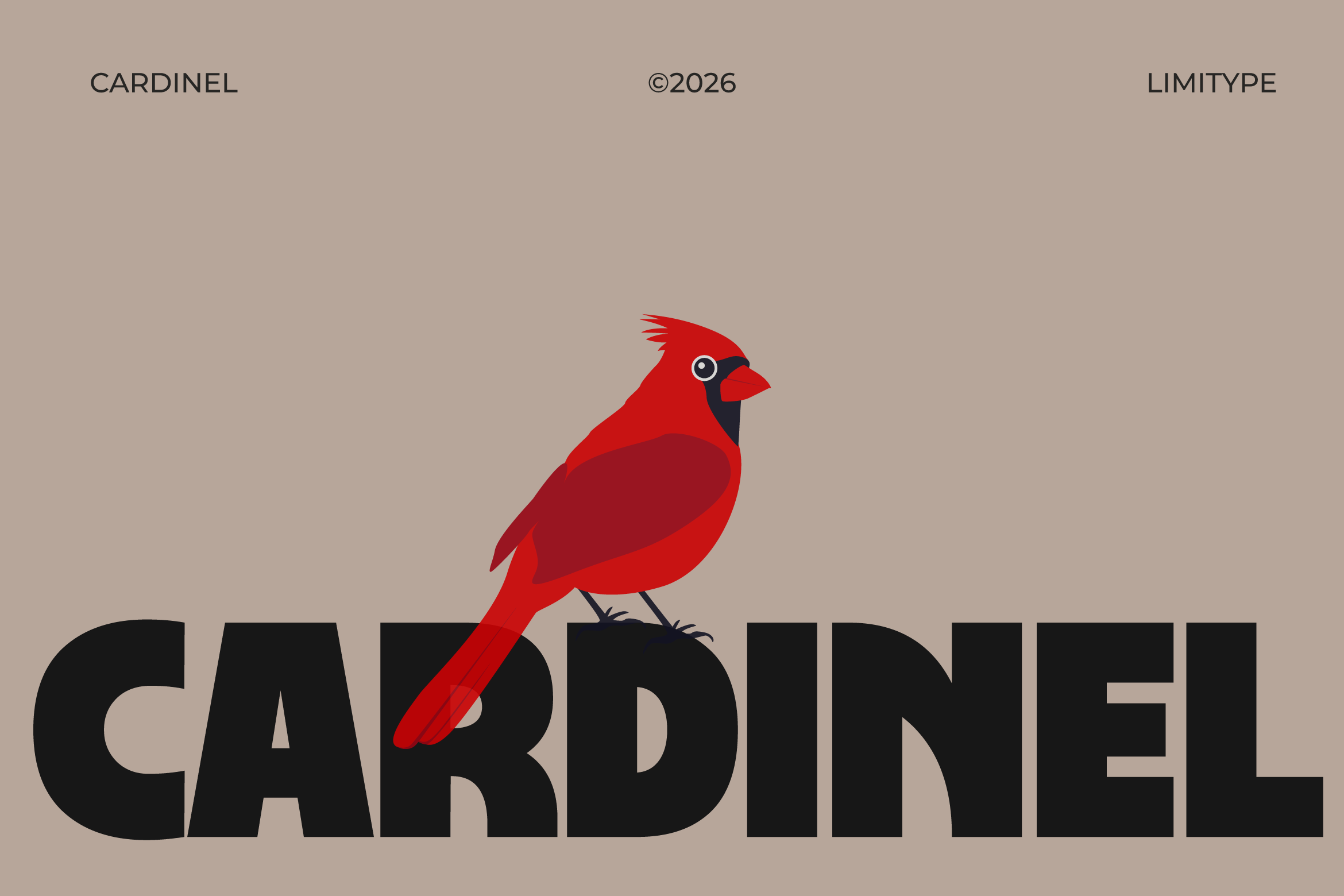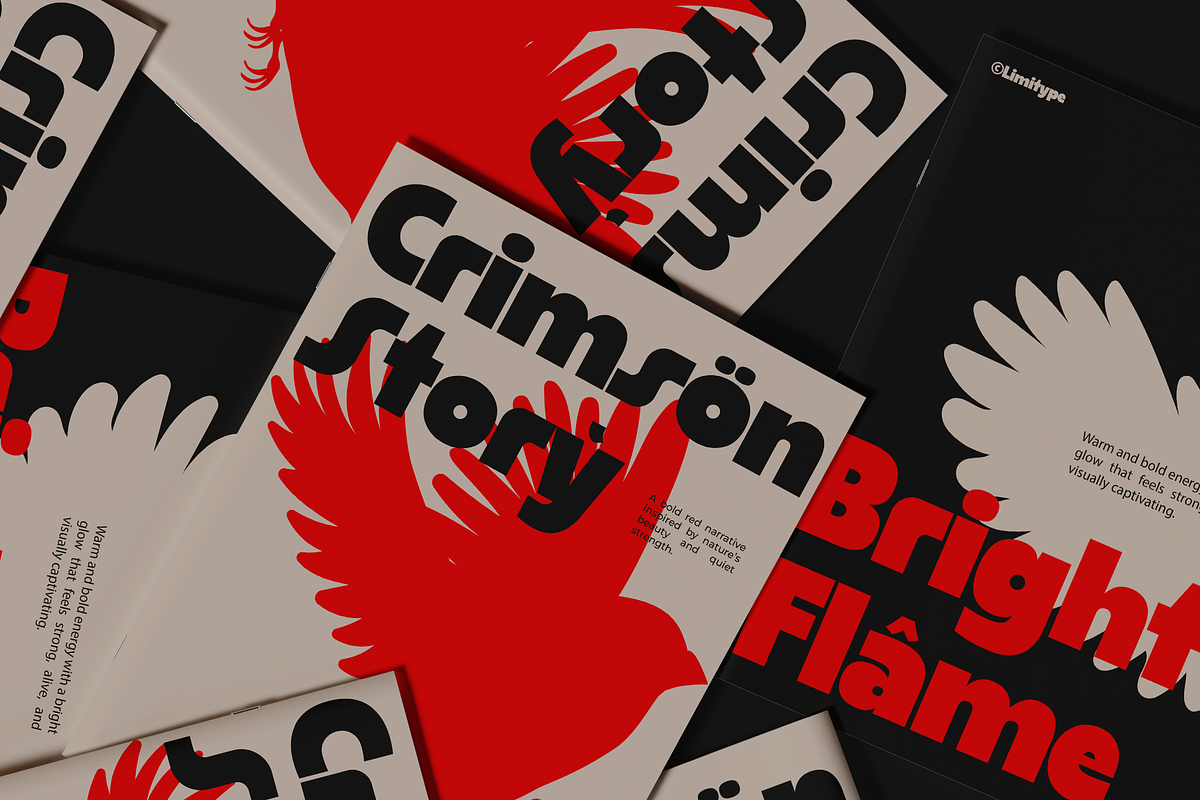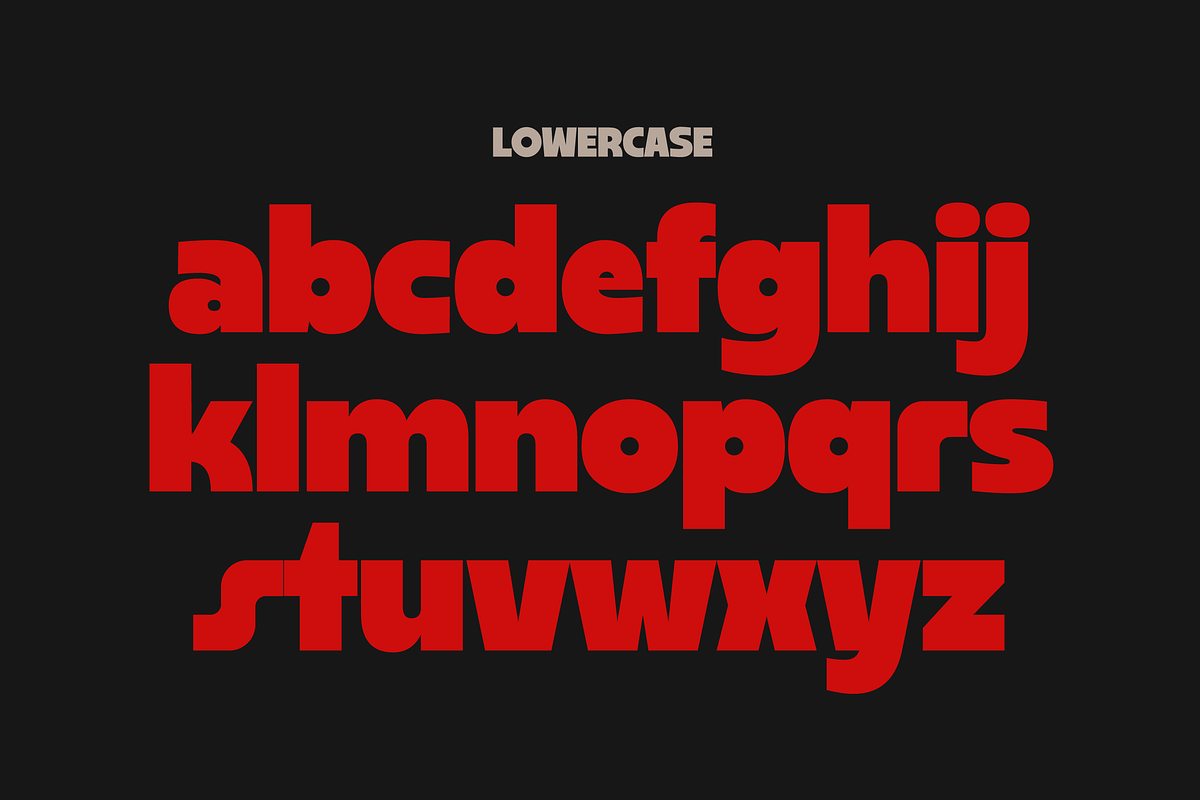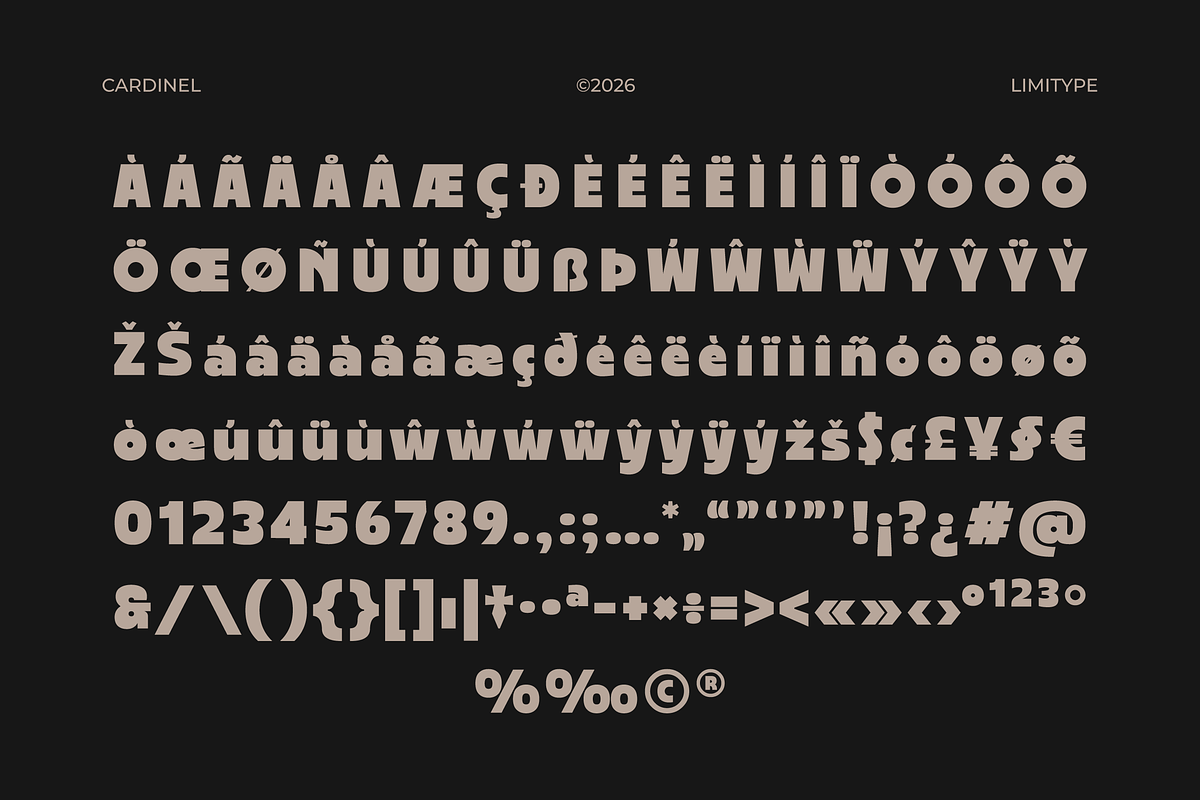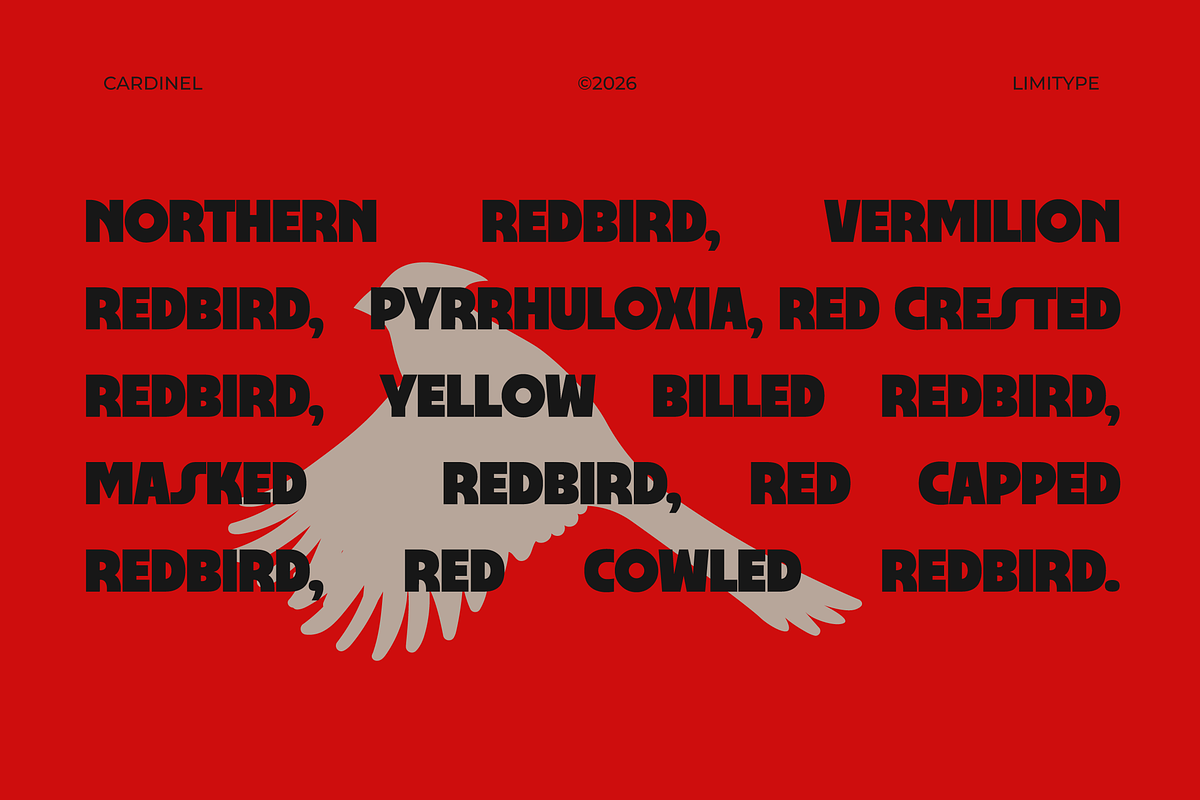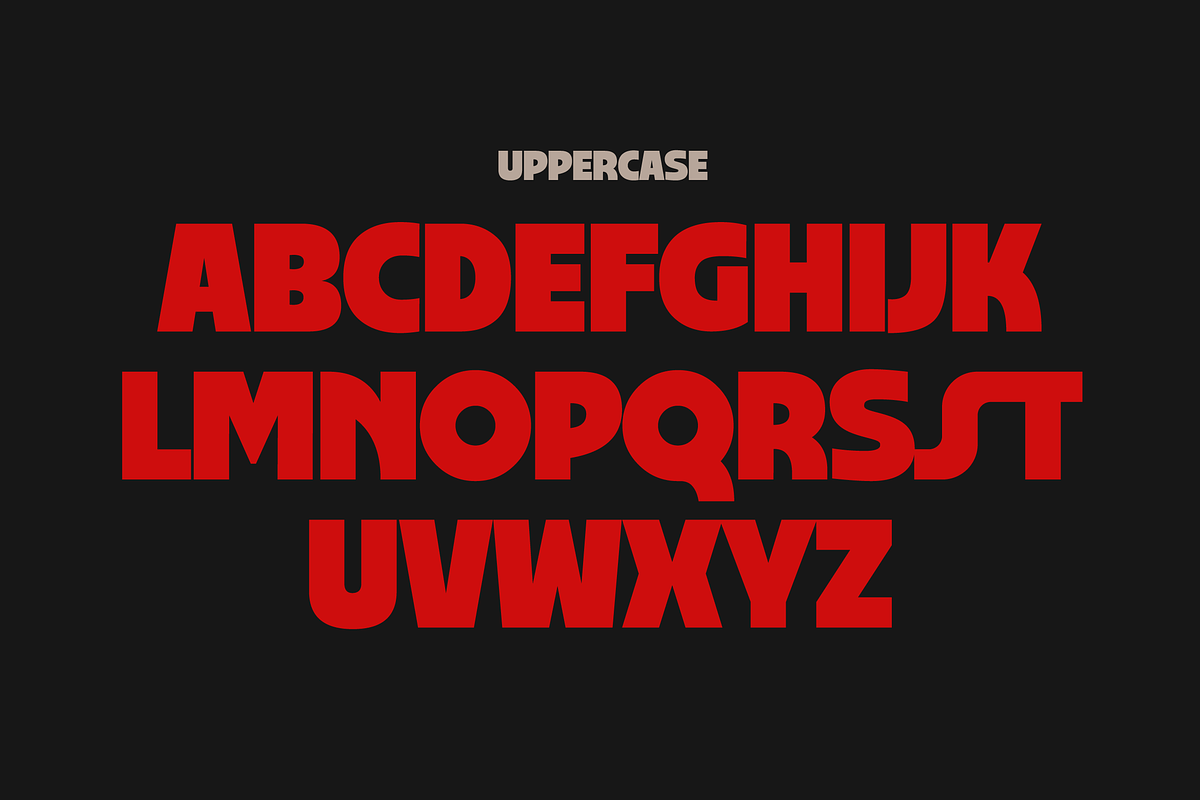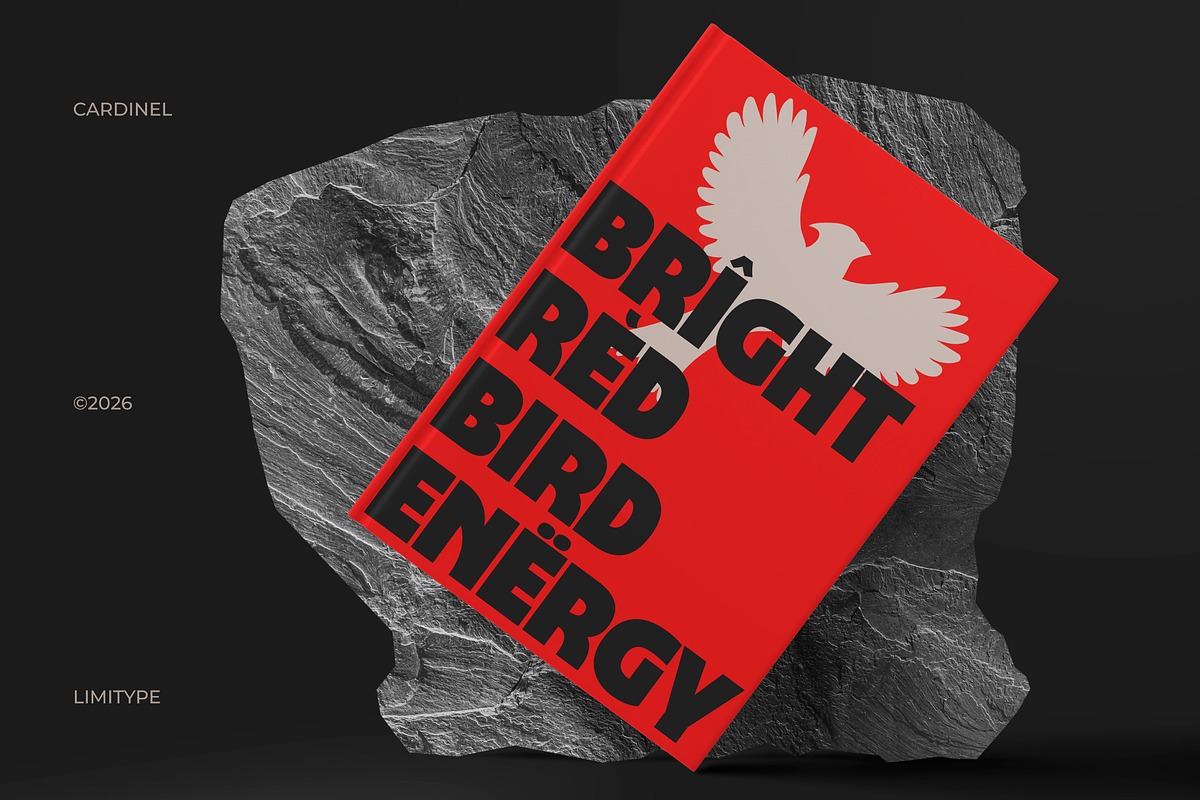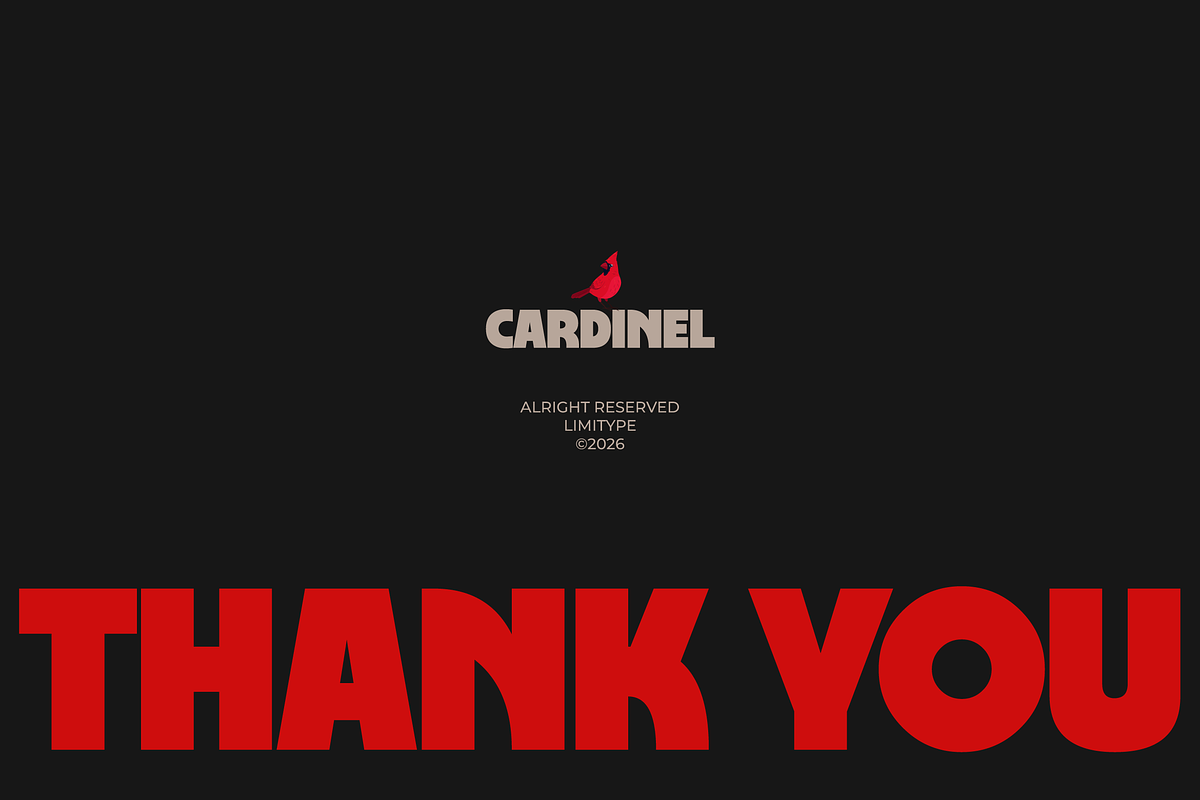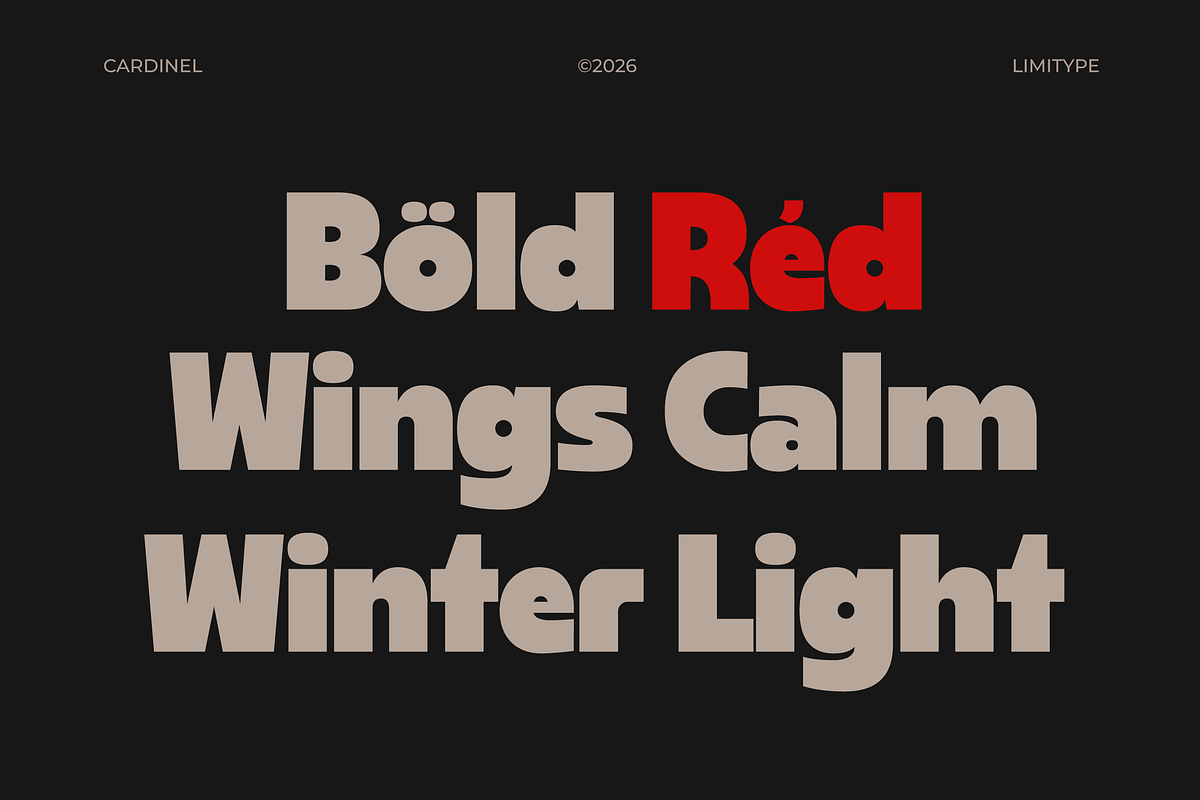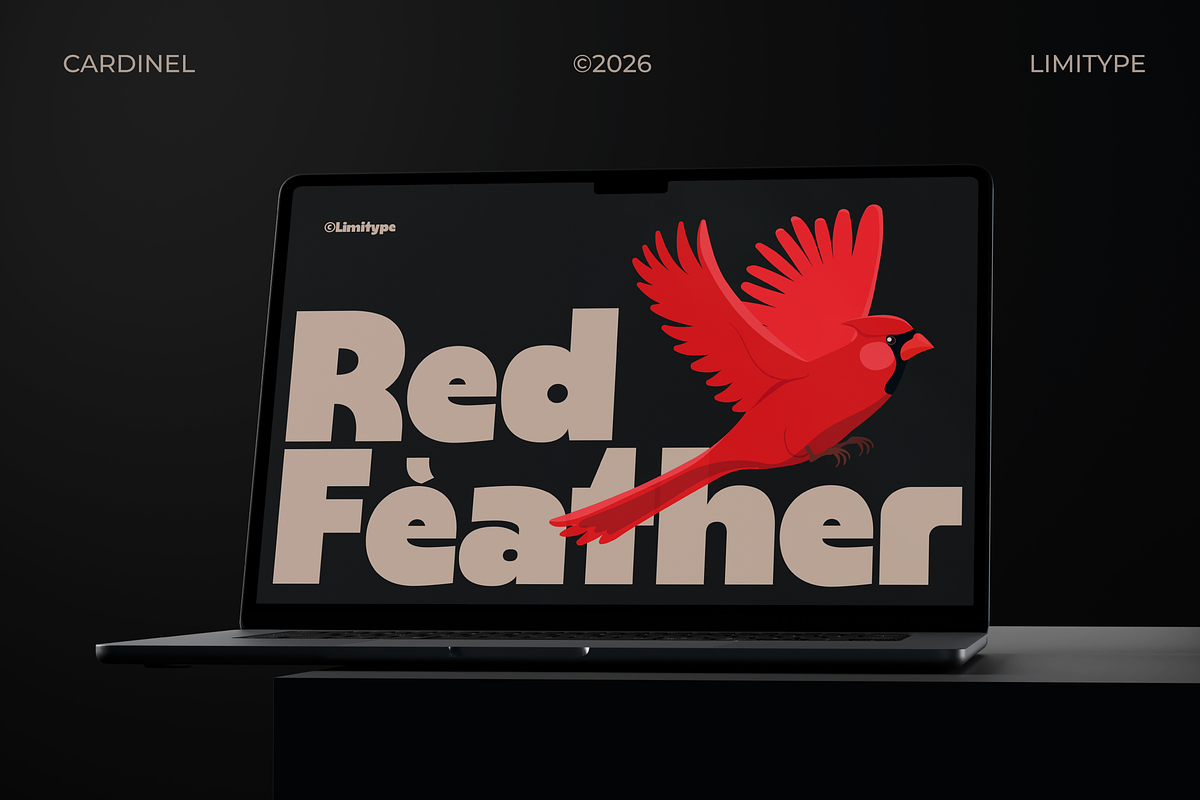
Cardinel - Bold Font
Cardinel is a bold, modern typeface built on a strong geometric structure and a dynamic visual rhythm, giving it a clean and contemporary feel. Its crisp yet energetic forms work especially well for branding, logos, headlines, posters, and editorial layouts that need to stand out. Cardinel is a great choice for modern design projects that aim to communicate with clarity, confidence, and a distinctive visual presence across both digital and print media.